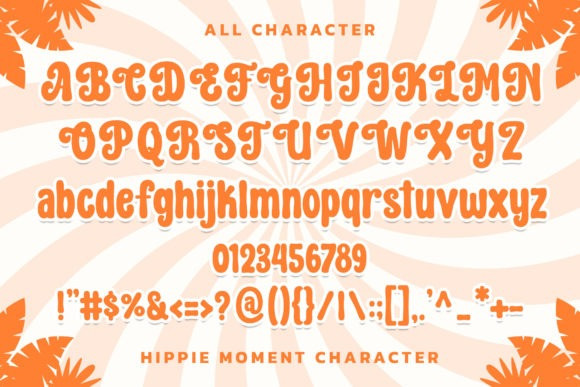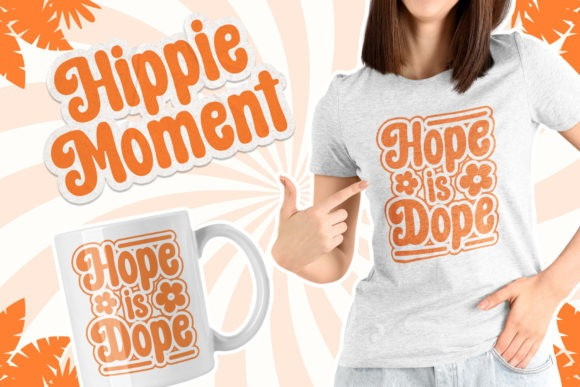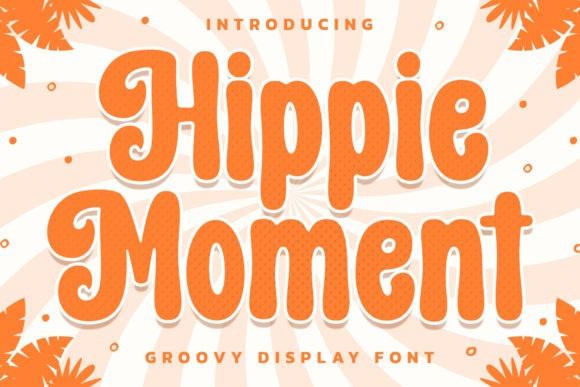
Hippie Moment Font
Hippie Moment Font is a Groovy Display Font that contain lowercase, uppercase, symbol. With PUA encoded which means you can access all of the glyphs and swashes with ease!
This font is perfect for creating t-shirts, stickers, cover book, children book, social media post and much more!